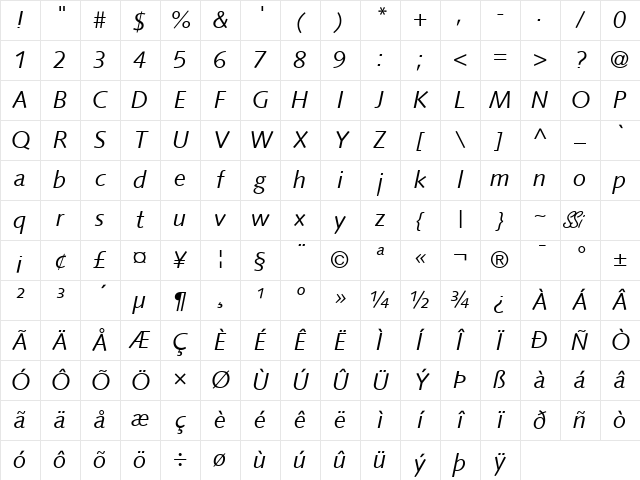
Facile SSi Italic
Design Context for Facile SSi
Facile SSi is a composed and adaptable typeface that performs quietly and consistently across a wide range of design contexts. The slanted form adds forward momentum and visual energy.
Pro Tip: Use Facile SSi for emphasis, pull quotes, and subheadings where its slanted energy can add rhythm to the layout.